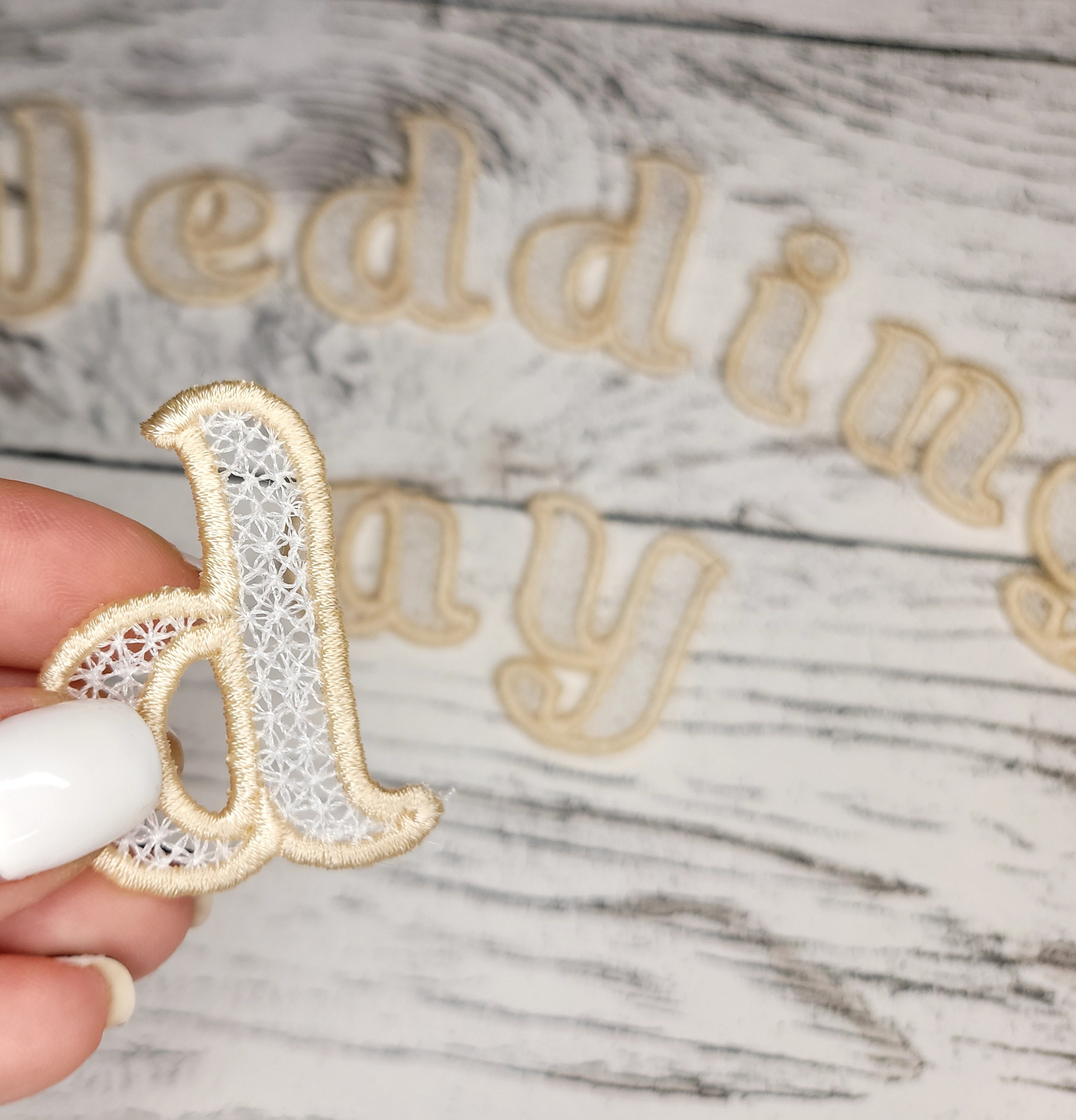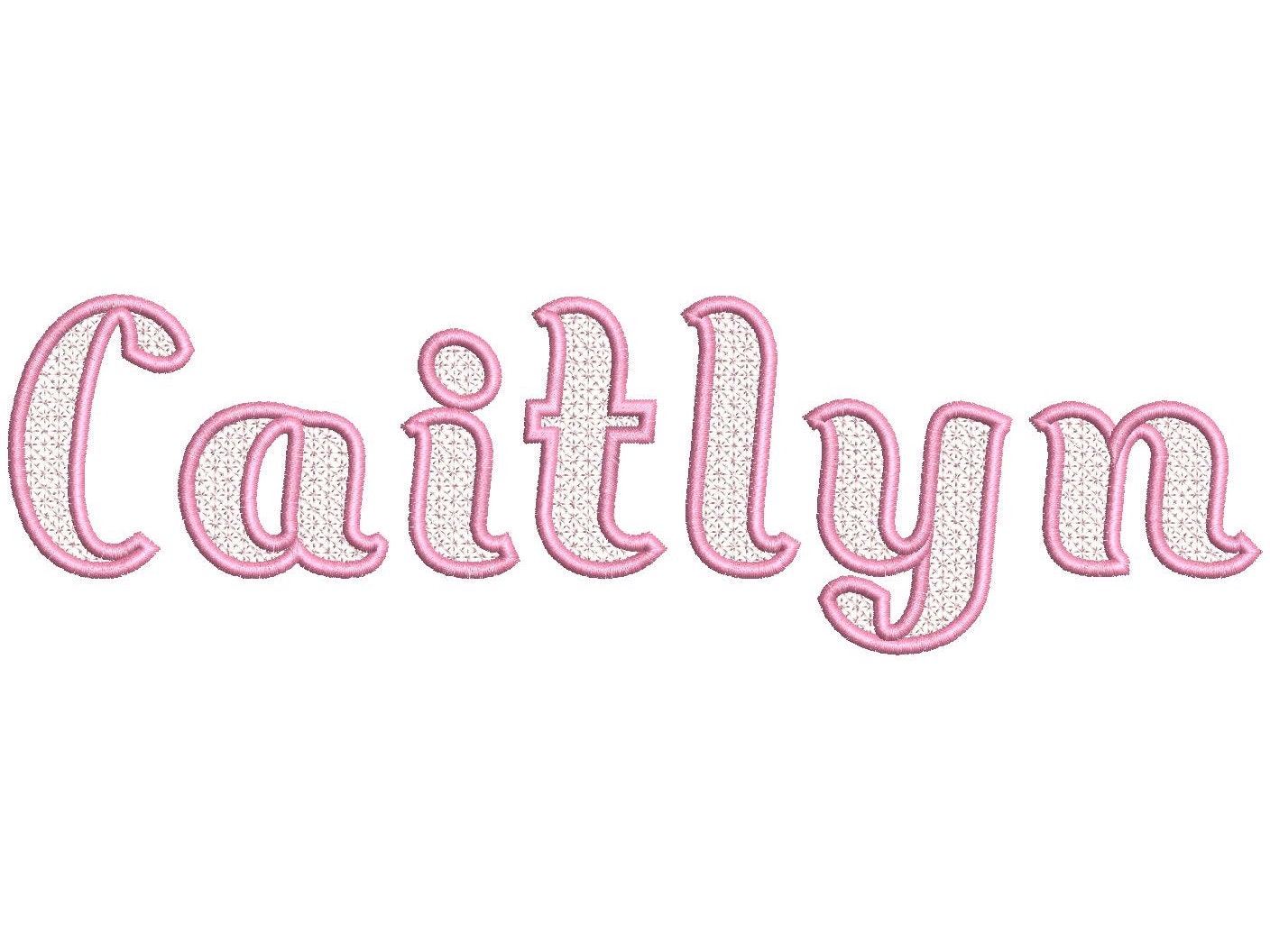
Delicate Lace Font whole alphabet A-Z monogram FSL Freestanding lace girl girly lacy letters machine embroidery designs in assorted sizes
Uppercase and lowercase letters with wide satin stitch
Freestanding lace! The adorable design is stitched onto a non-woven water-soluble stabilizer.